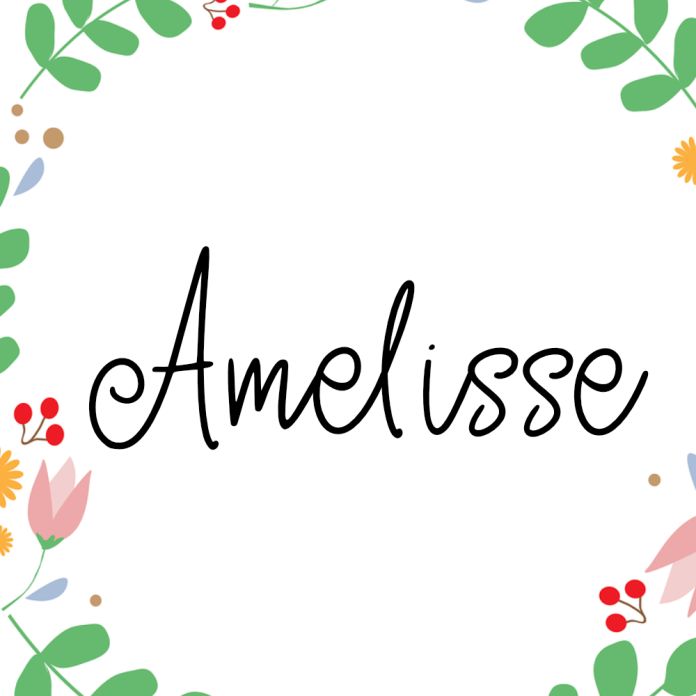
Amelisse is a graceful handwritten script that captures the beauty of delicate penmanship with a modern romantic twist. With fluid strokes, gentle curves, and a soft, feminine touch, Amelisse brings elegance to everything from wedding invitations and love notes to branding, social media graphics, and packaging.